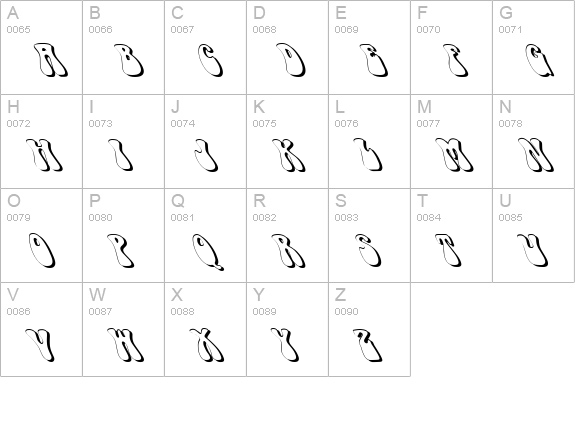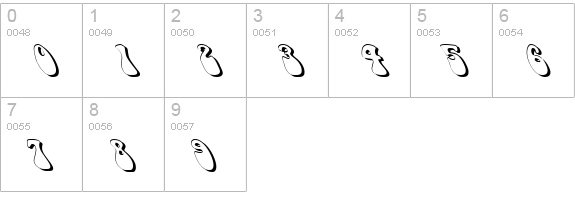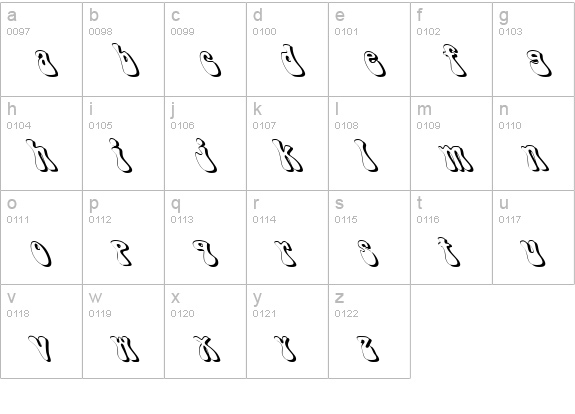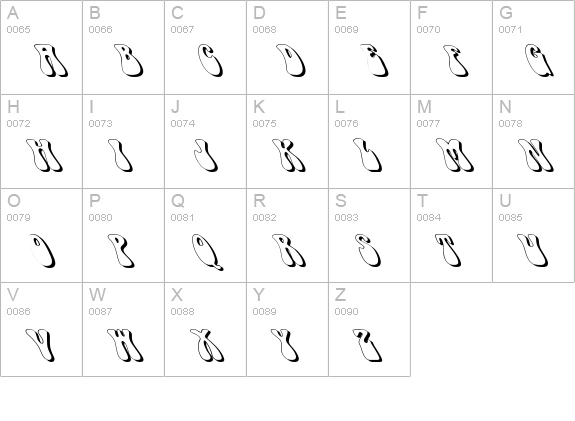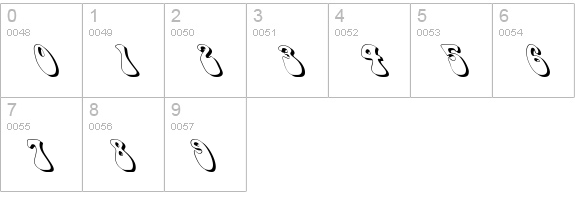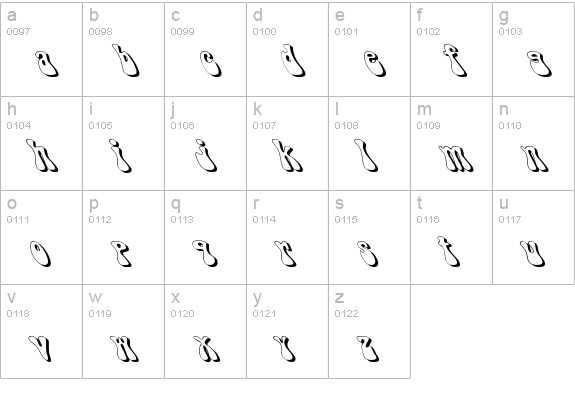
FZ JAZZY 14 3D LEFTY Font Details
FZ JAZZY 14 3D LEFTY font is a unique and stylish typeface that exudes creativity and modernity. With its three-dimensional design and left-slanted orientation, this font adds a touch of flair to any project or design. The bold and dynamic look of FZ JAZZY 14 3D LEFTY font makes it perfect for headlines, posters, logos, and more. The best part? FZ JAZZY 14 3D LEFTY font is available for free download at FontsMarket.com. This means you can easily enhance your creations with this eye-catching font without any cost. Whether you're a designer, artist, or just someone looking to add some pizzazz to your projects, FZ JAZZY 14 3D LEFTY font is a great choice. Download it today and let your creativity shine!